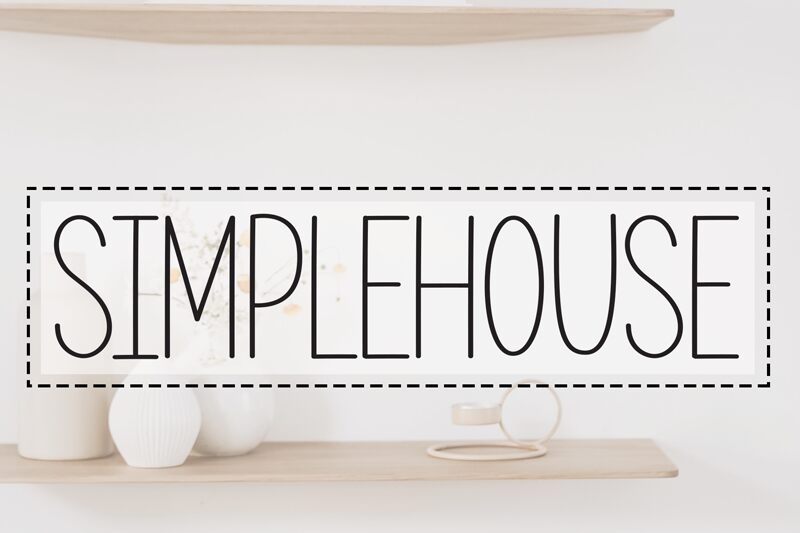
Simple House
Simple House, designed by Scratchones, is a striking display font that exudes elegance and sophistication. With its extra-light weight and extra-condensed width, this font is perfect for projects that require a minimalist yet impactful touch.
Its allcaps feature adds an air of professionalism, making it ideal for corporate branding materials, luxurious product packaging designs, and contemporary fashion magazines. Simple House will effortlessly elevate your designs with its clean lines and refined aesthetics. Let this font be the cornerstone of your next creative endeavor and watch as it captivates audiences with its understated beauty.